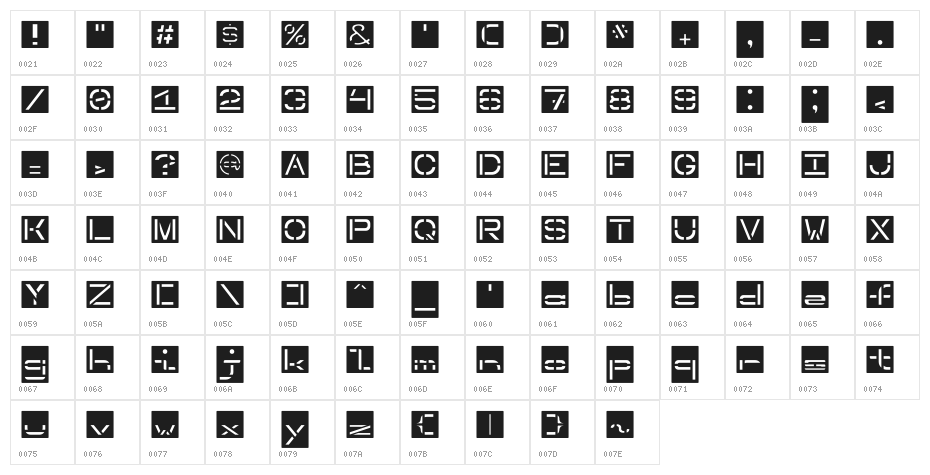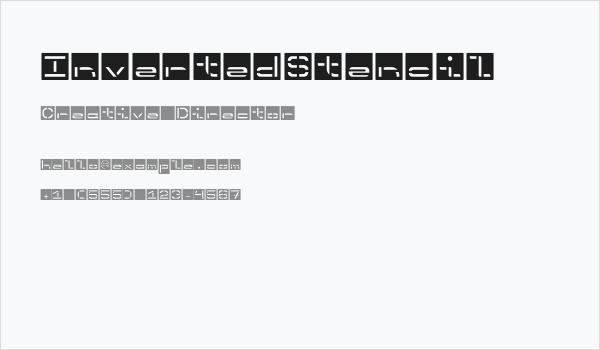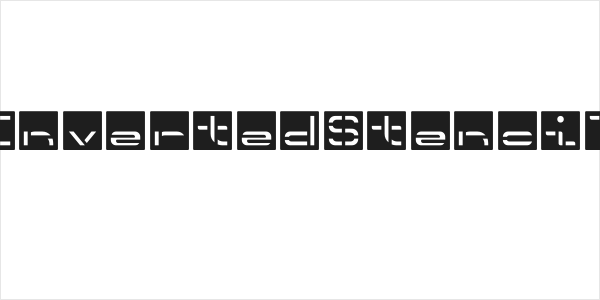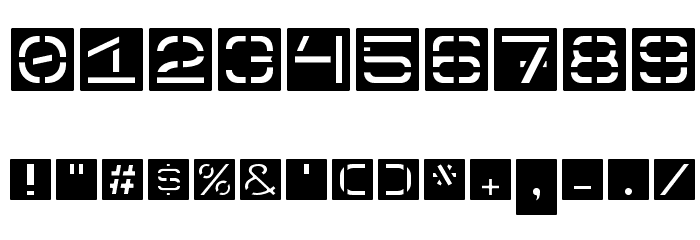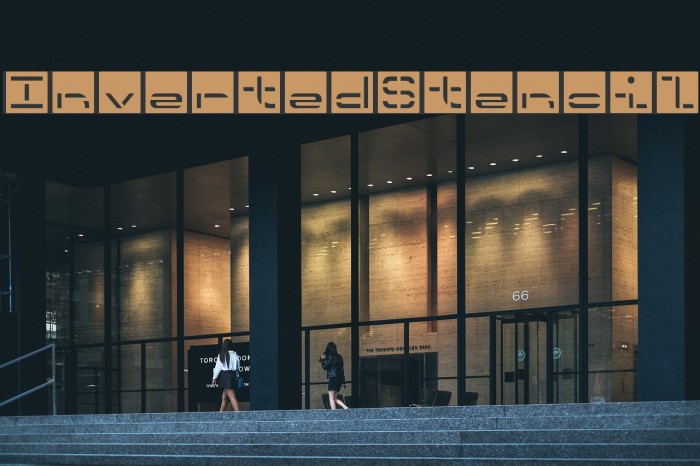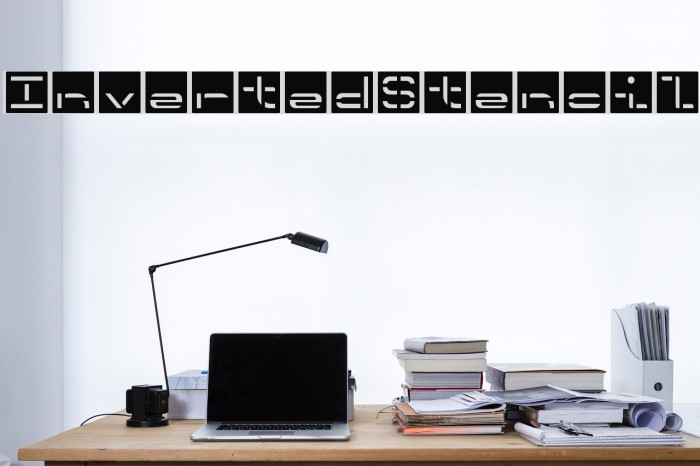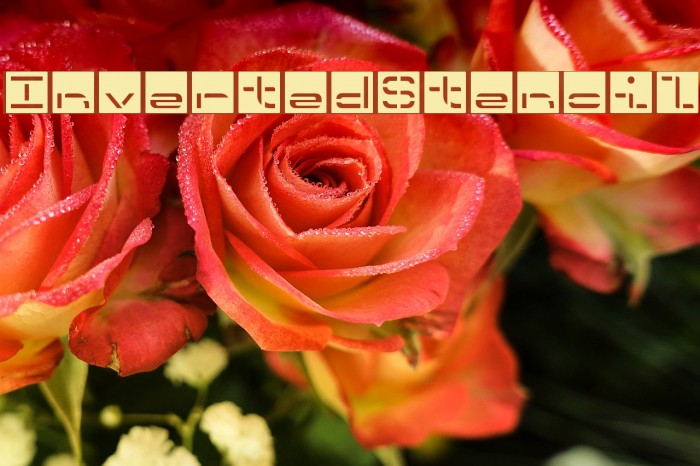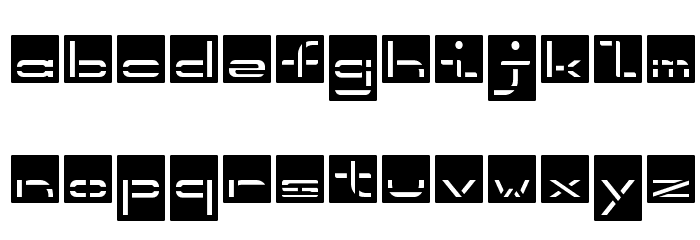
InvertedStencil Font
InvertedStencil Description
This font features a bold and striking stencil design, characterized by its blocky and geometric letterforms. Each character is enclosed within a square, creating a uniform and structured appearance. The cut-out sections within the letters enhance its stencil effect, making it ideal for designs that require a rugged and industrial look. The font maintains a consistent width across all characters, providing a balanced and cohesive visual impact. Its high contrast between the thick strokes and the negative space ensures readability while adding a dramatic flair.
| Overall Style | Modern, Industrial |
| Proposed Projects | Ideal for posters, industrial-themed designs, branding, and signage that require a bold and impactful statement. |